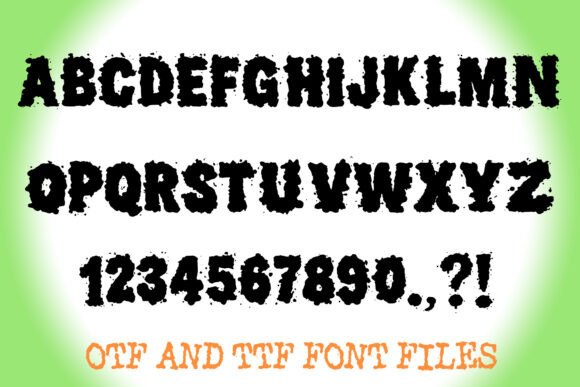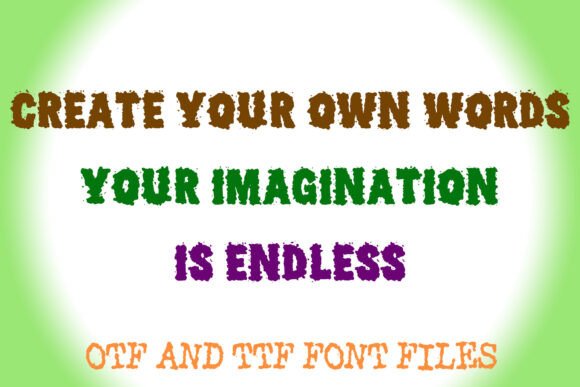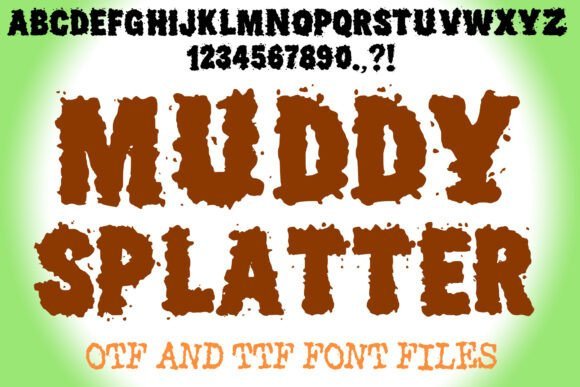
Introduction to Muddy Splatter Font
Muddy Splatter is a bold, playful grunge font with a splashed, splattered effect that looks like real mud.
It’s perfect for messy kids’ designs, Halloween graphics, science experiments, or any project that wants to be loud, dirty, and fun .
Why Choose Muddy Splatter Font?
Muddy Splatter Font offers exceptional quality and versatility, making it a valuable addition to your design toolkit. Whether you’re creating for personal projects or commercial use, Muddy Splatter Font delivers professional results.